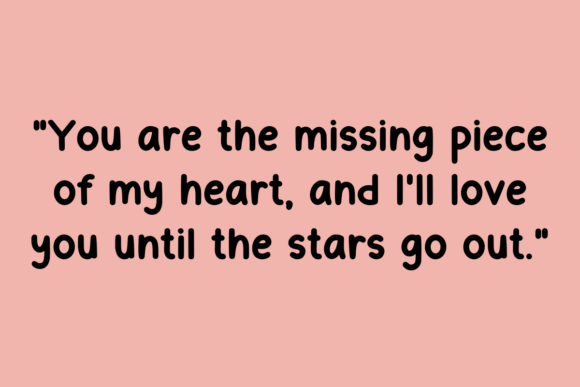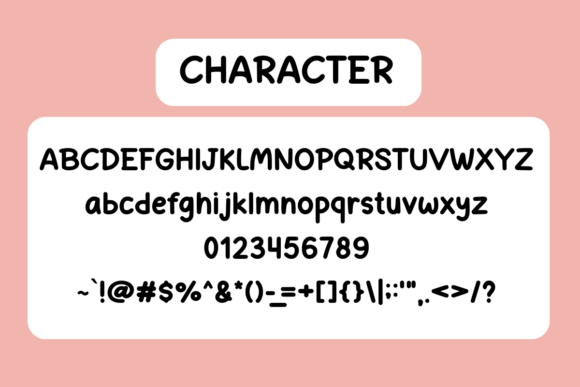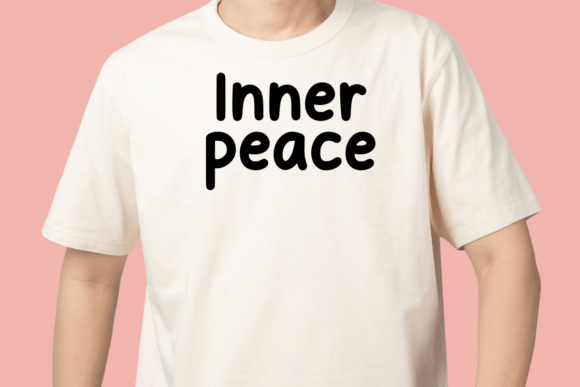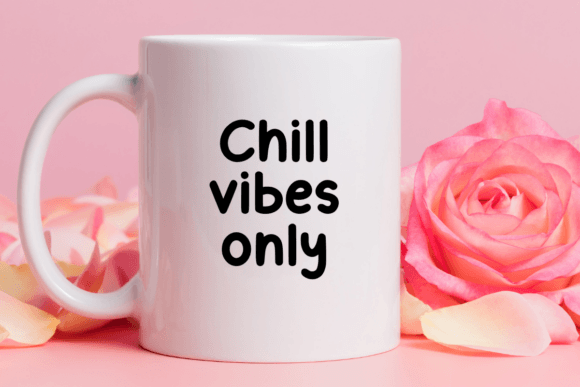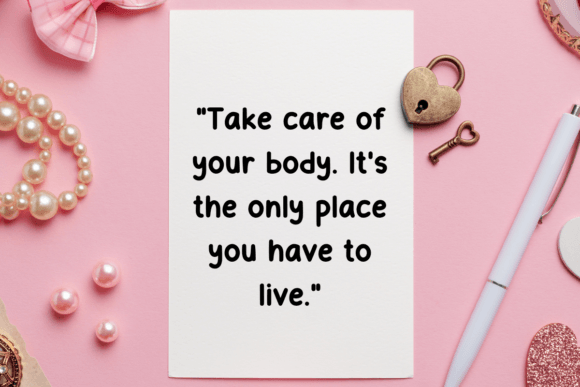
Eternal Love Font: The Perfect Addition to Your Design Collection
Are you tired of using the same old fonts in your designs? Look no further than the Eternal Love font, a fun sans serif font that is sure to add a joyful touch to your creations. With its unique and playful style, Eternal Love is the perfect way to make your designs stand out from the crowd.
What is Eternal Love Font?
Eternal Love font is a modern sans serif font that is designed to bring a sense of joy and playfulness to your designs. Its clean and simple lines make it easy to read and versatile enough to use in a variety of contexts. Whether you’re designing a logo, creating a social media graphic, or crafting a handmade project, Eternal Love font is the perfect choice.
Key Features of Eternal Love Font
- Fun and playful style: Eternal Love font has a unique and playful style that is sure to add a touch of personality to your designs.
- Sans serif design: The clean and simple lines of Eternal Love font make it easy to read and versatile enough to use in a variety of contexts.
- Modern and fresh look: Eternal Love font has a modern and fresh look that is perfect for designers and crafters who want to create unique and eye-catching designs.
How to Use Eternal Love Font in Your Designs
Eternal Love font is incredibly versatile and can be used in a variety of design contexts. Here are a few ideas to get you started:
- Logos and branding: Use Eternal Love font to create a unique and memorable logo for your business or brand.
- Social media graphics: Add a playful touch to your social media graphics with Eternal Love font.
- Handmade projects: Use Eternal Love font to add a personal touch to your handmade projects, such as scrapbooking, card making, and DIY crafts.
- Web design: Use Eternal Love font to create a modern and fresh look for your website.
Benefits of Using Eternal Love Font
There are many benefits to using Eternal Love font in your designs. Here are a few:
- Unique and eye-catching: Eternal Love font is sure to make your designs stand out from the crowd.
- Easily readable: The clean and simple lines of Eternal Love font make it easy to read, even at small sizes.
- Versatile: Eternal Love font can be used in a variety of design contexts, from logos and branding to social media graphics and handmade projects.
- Modern and fresh look: Eternal Love font has a modern and fresh look that is perfect for designers and crafters who want to create unique and eye-catching designs.
Tips for Getting the Most Out of Eternal Love Font
Here are a few tips for getting the most out of Eternal Love font:
- Experiment with different colors: Eternal Love font looks great in a variety of colors, so don’t be afraid to experiment and find the perfect color for your design.
- Use it with other fonts: Eternal Love font pairs well with other fonts, so try using it with a bold font for a fun and playful look.
- Play with different sizes: Eternal Love font looks great at a variety of sizes, from small and delicate to large and bold.
Eternal Love font is a fun and playful sans serif font that is sure to add a joyful touch to your designs. With its unique and eye-catching style, Eternal Love font is the perfect way to make your designs stand out from the crowd. Whether you’re a designer or crafter, Eternal Love font is a great addition to your collection.